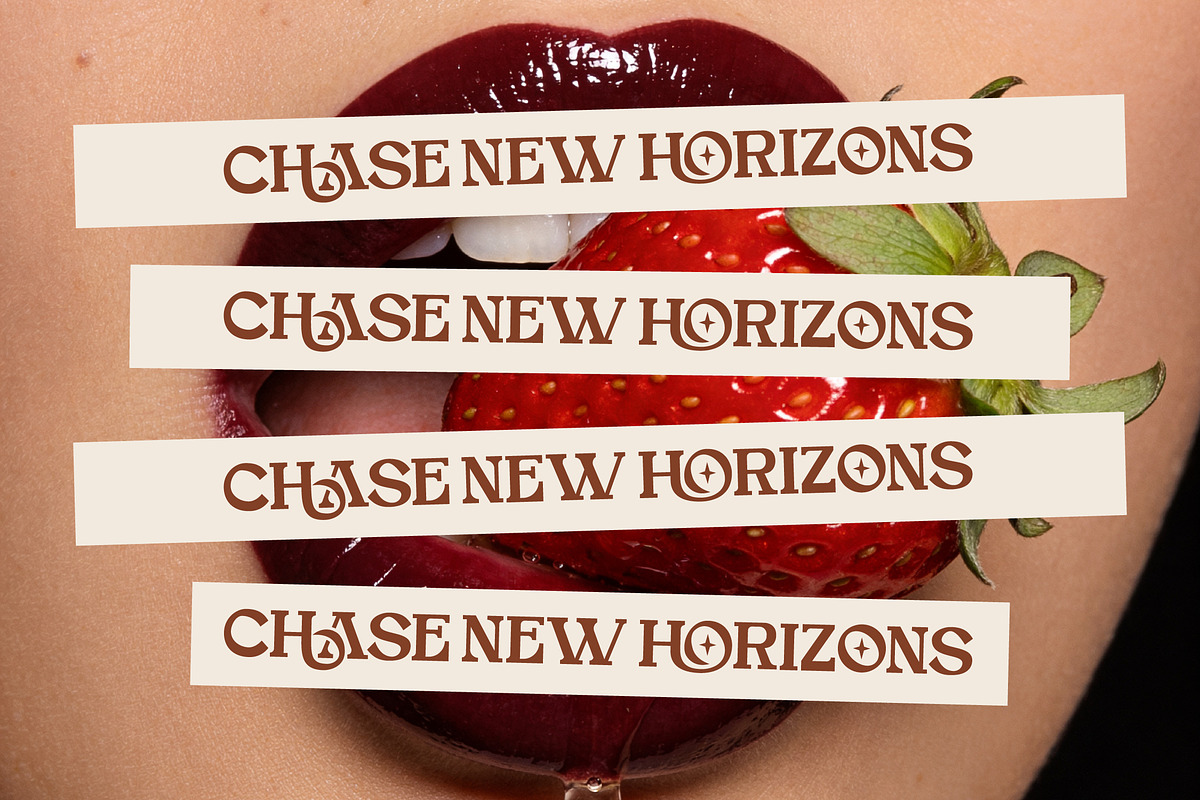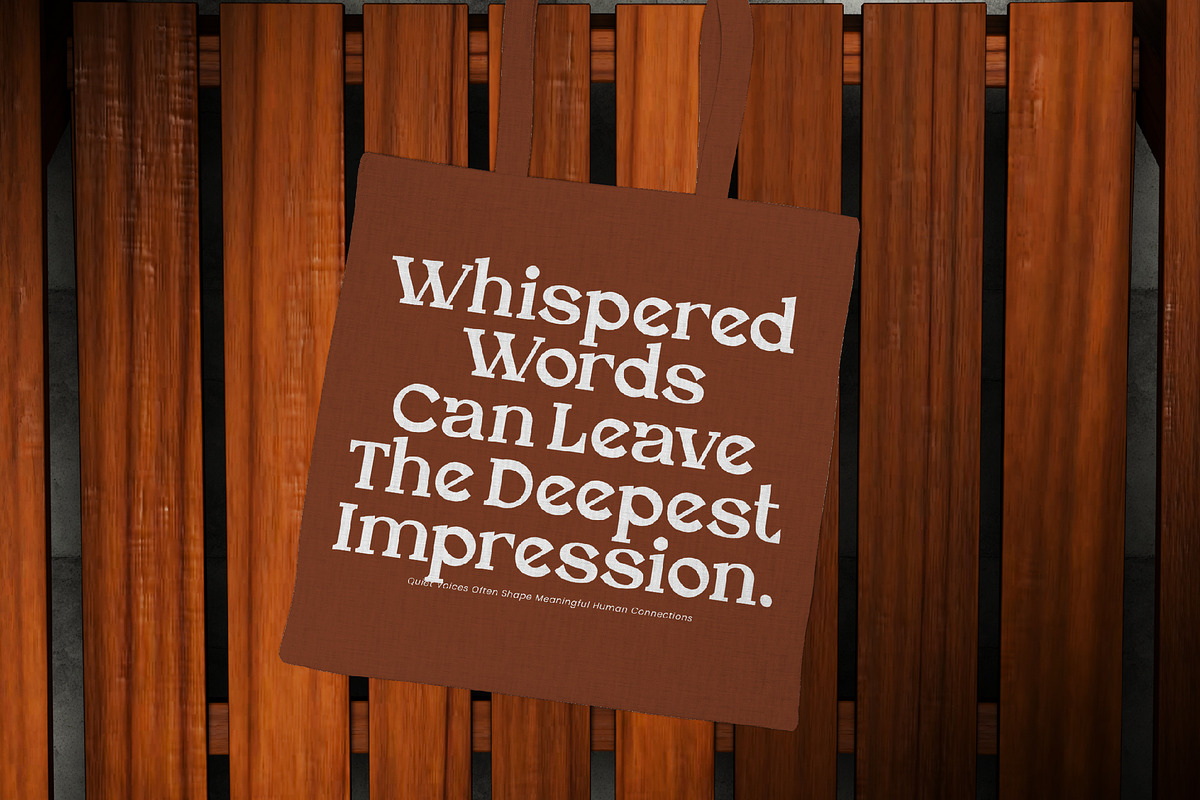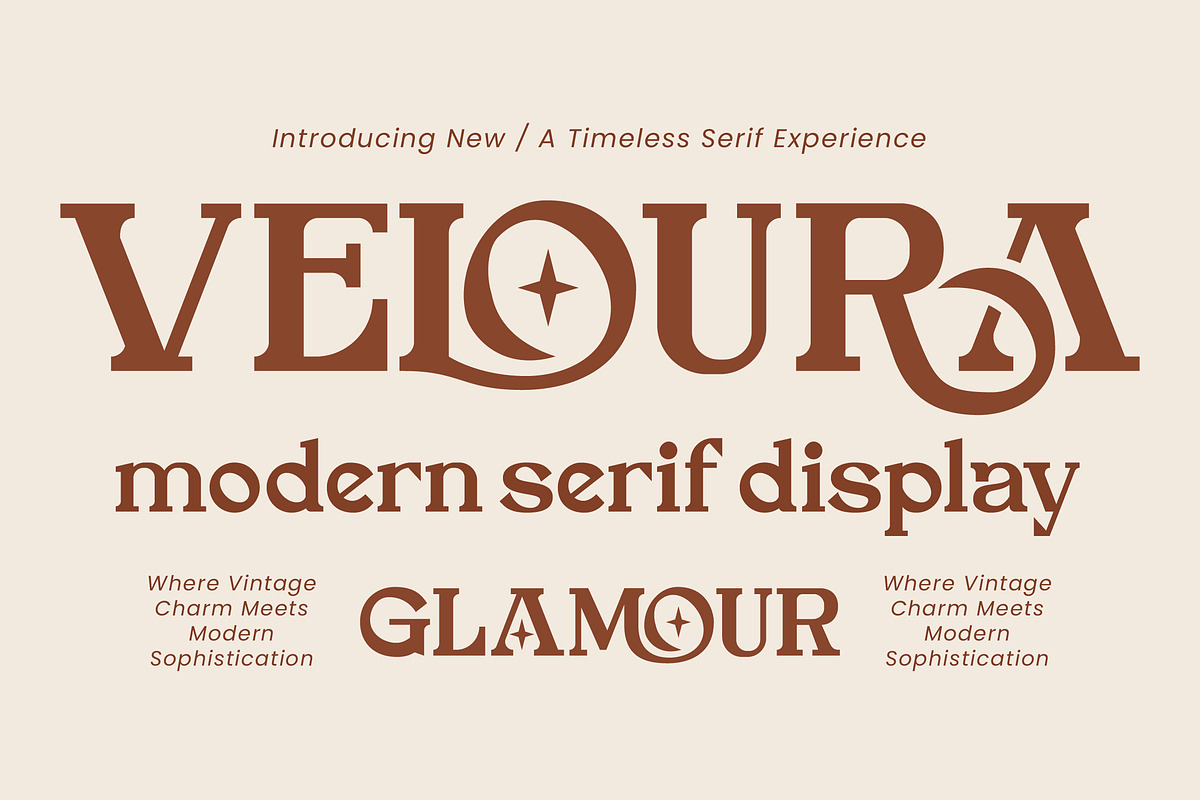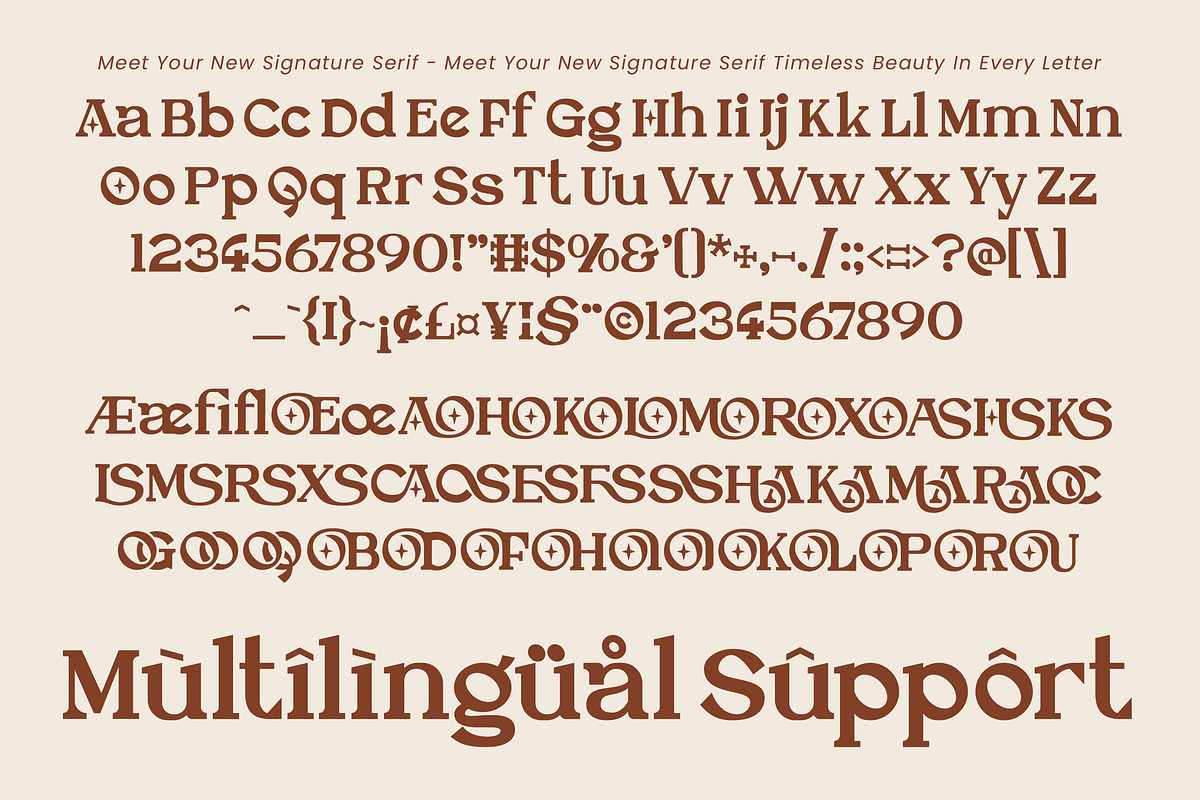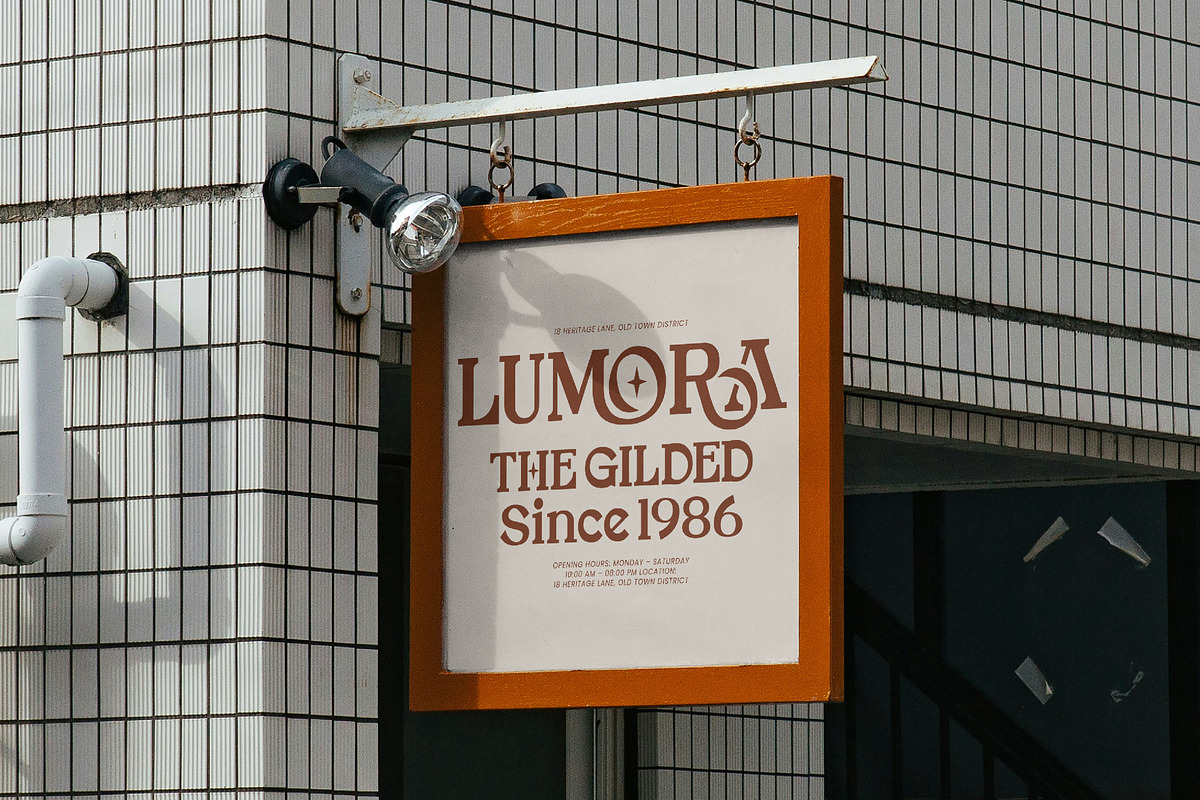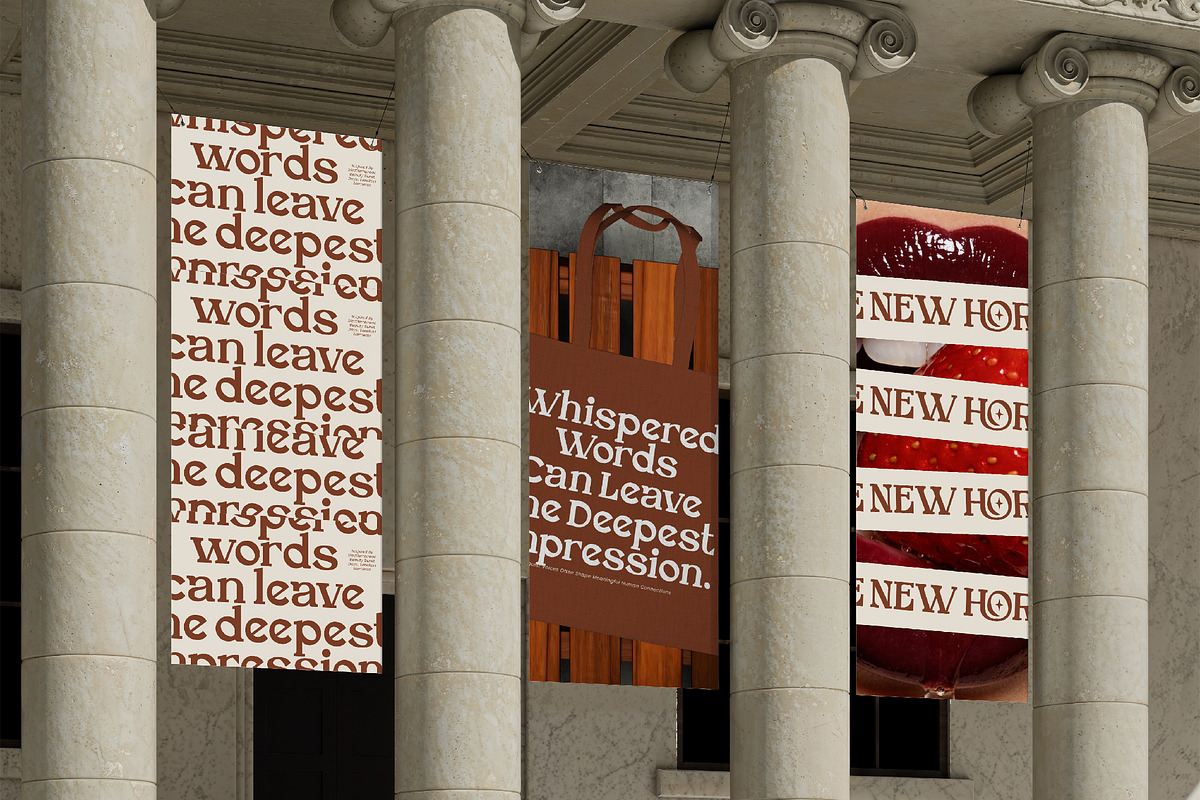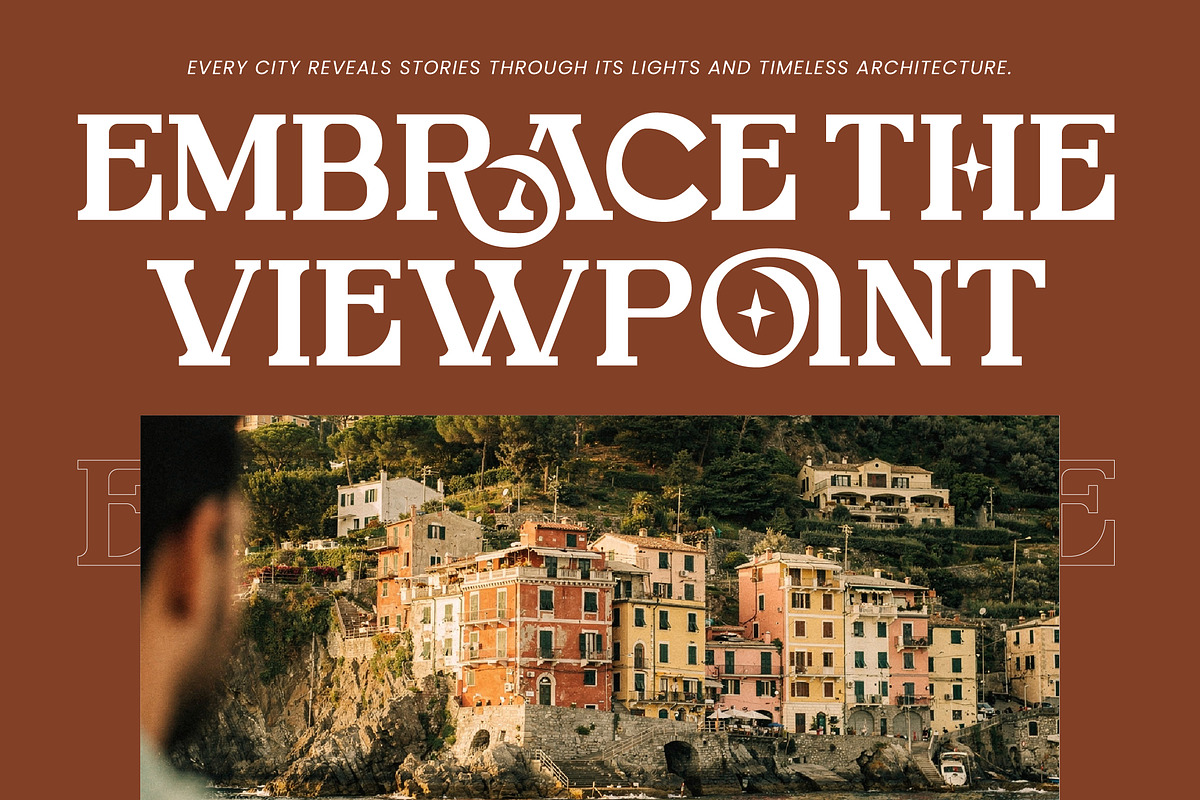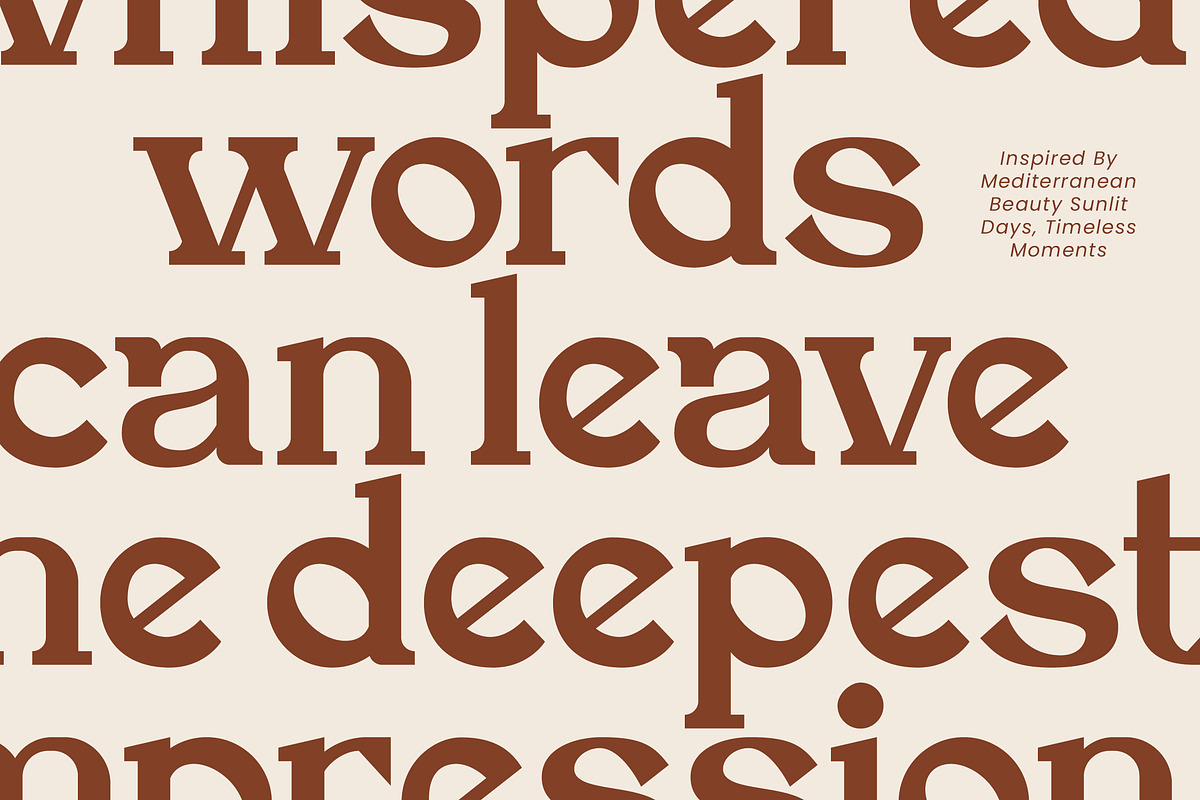
Veloura Modern Serif Display
Veloura is a modern serif display font that captures the perfect balance between vintage elegance and contemporary sophistication. With its refined letterforms, distinctive alternates, and graceful decorative details, Veloura is designed to create eye-catching typography that feels both timeless and fashionable.
Inspired by classic editorial aesthetics and luxury branding, this font brings a sense of glamour and exclusivity to every project. Whether used for logos, magazine headlines, packaging, or social media content, Veloura delivers a bold visual presence while maintaining exceptional readability and elegance.
Its stylish character and unique display appeal make it an excellent choice for designers seeking a premium serif font with personality and charm.